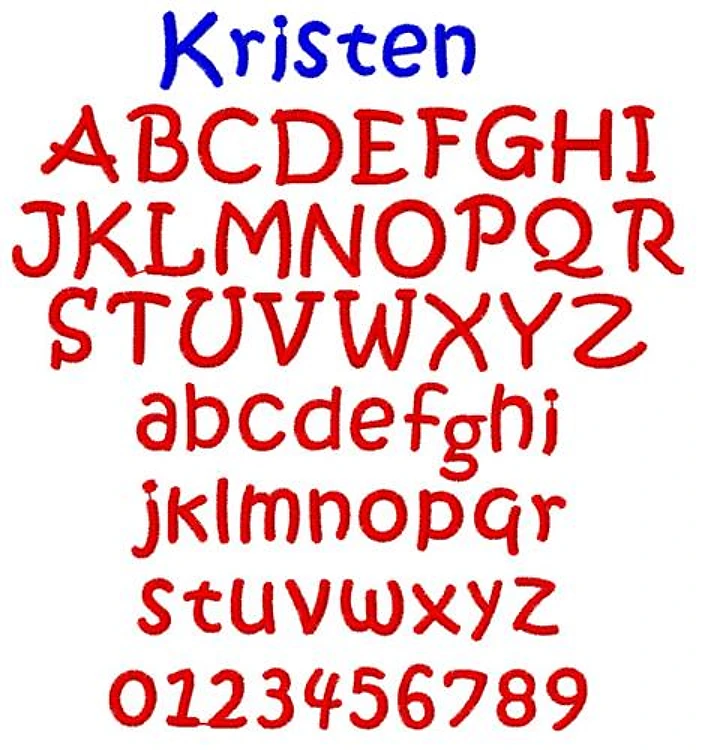
Internet Stitch is happy to present Kristen machine embroidery font which has Casual handwritten machine embroidery font suitable for personalizing items such as bags or shirts. Available in ELP format. included. If you would like to view more embroidery fonts and alphabets please search our embroidery fonts page.